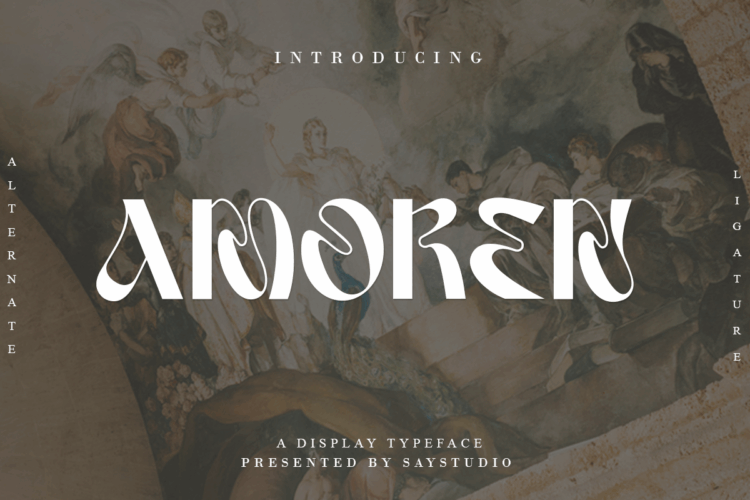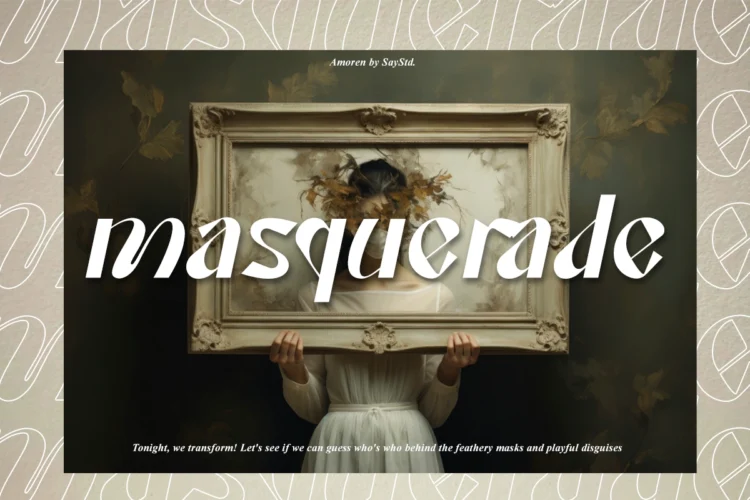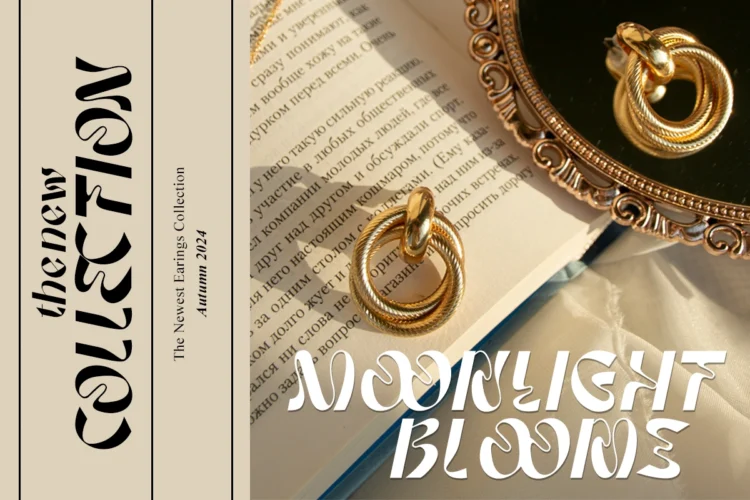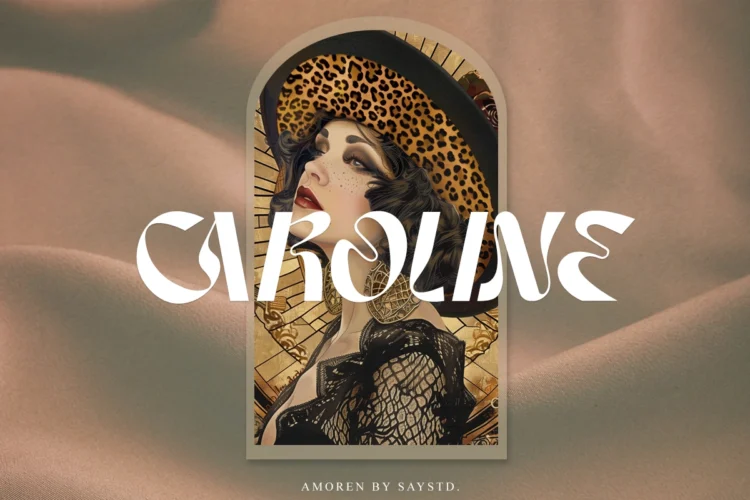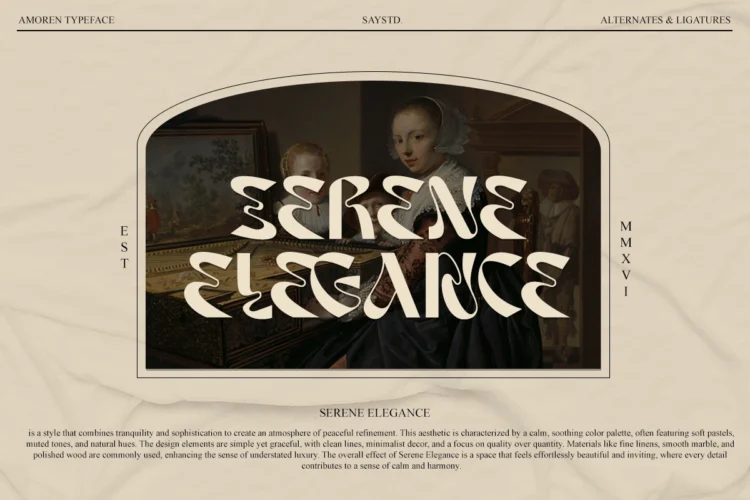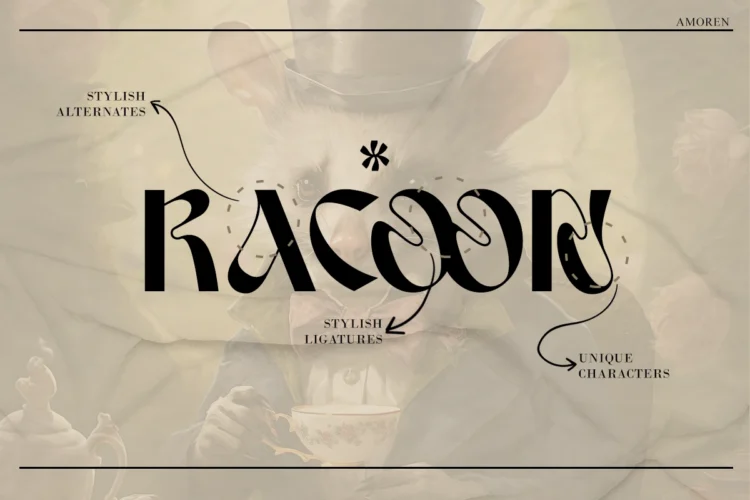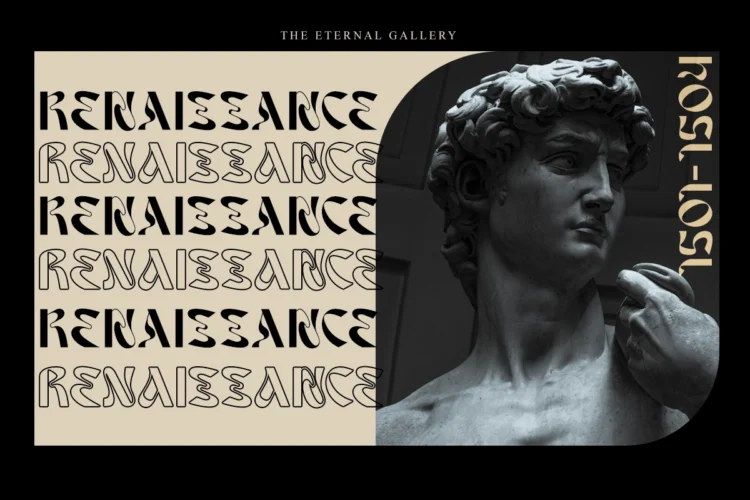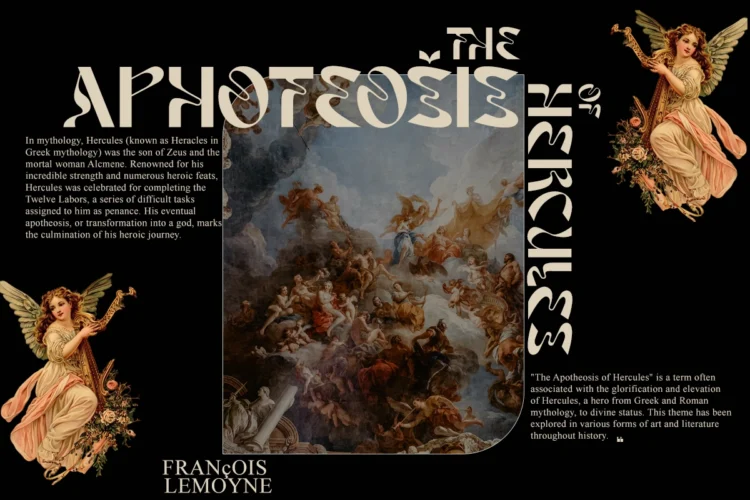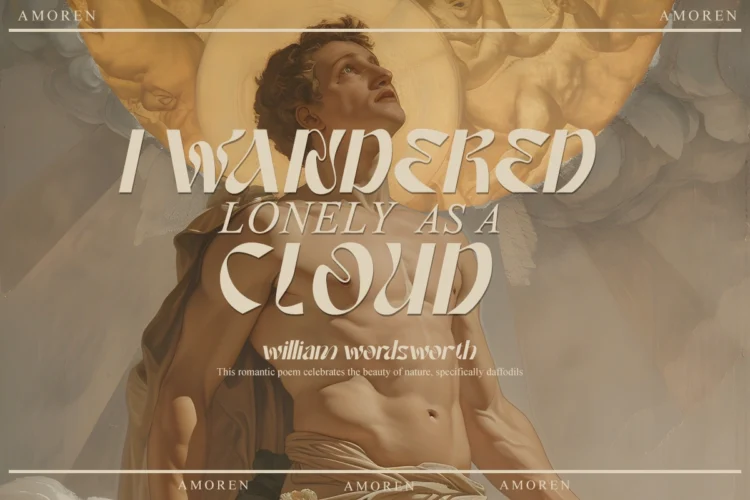
Amoren
Introducing Amoren, a Variable display font with a psychedelic look and unique curves to bring a pleasant visual moment to the viewer. this font will add a fresh, fun feel to your designs. Amoren is perfect for apparel, book covers, titles, etc and have features several alternate characters and Ligatures.
• Alternates & Ligatures Character
• Multilingual Support